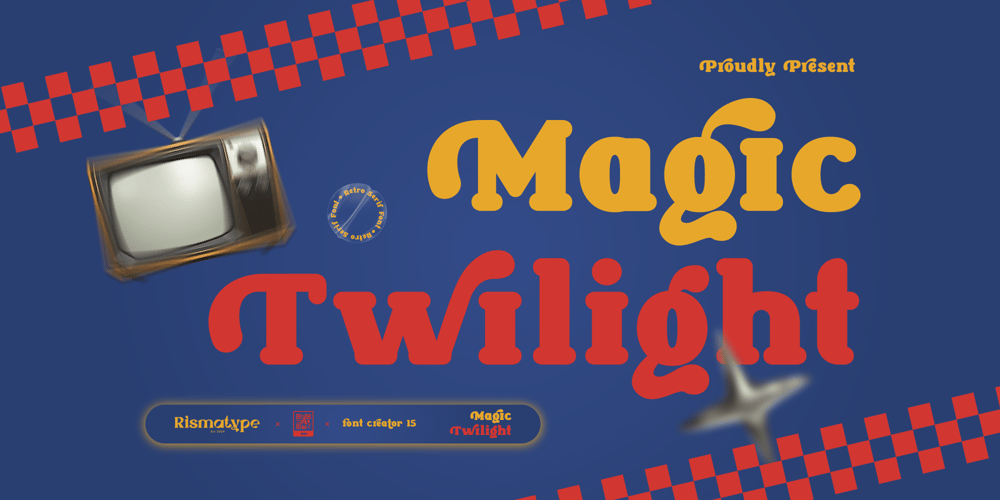
Magic Twilight
Magic Twilight font
Magic Twilight Font Family was designed by Risma Mulyasari and published by Risma Type. Magic Twilight contains 2 styles and family package options. ✨ Magic Twilight ✨Enchanting and Majestic Retro Serif Display FontMagic Twilight is a serif display font designed to capture the essence of elegance and mystery. With its graceful curves and refined structure, this font is perfect for enhancing design projects that demand sophistication and charm, such as:Branding & Logos: Create a memorable and magical brand identity.Editorial & Magazines: Add an air of elegance and refinement to your layouts.Invitations & Cards: Bring a touch of magic and luxury to your special occasions.💎 Make a lasting impact with every letter of Magic Twilight.Elevate your designs with a perfect blend of enchantment and sophistication that truly stands out!